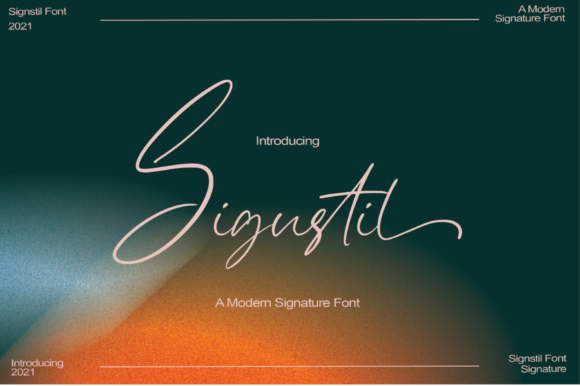
Introducing **Sigustil Font**, a breathtaking script font family that exudes elegance and sophistication. Its carefully crafted curves and delicate strokes evoke the timeless charm of calligraphy, yet it retains a modern and fresh appeal. This versatile font is PUA encoded, granting you effortless access to a treasure trove of glyphs and swashes, empowering you to unleash your creativity and add a personal touch to your designs.
**Sigustil: The Perfect Font For Wedding Welcome Signs**
Are you planning a wedding and seeking a font that captures the joy and romance of your special day? Look no further than Sigustil. This enchanting font will transform your welcome sign into a captivating masterpiece that sets the tone for an unforgettable celebration. Its graceful lines and elegant flourishes will evoke a sense of warmth and hospitality, inviting guests to immerse themselves in the magic of your love story.
**Why Sigustil is the Must-Have Font for Designers**
As a designer, you understand the importance of creating designs that resonate with your audience. Sigustil is your secret weapon for crafting captivating designs that leave a lasting impression. Its versatility extends beyond wedding welcome signs; it's perfect for invitations, greeting cards, logos, branding, social media graphics, and more. Its timeless beauty and adaptability make it an essential tool for designers seeking to elevate their work and make a statement.
**Experience the Beauty of Sigustil Today**
Don't let this opportunity pass you by. Embrace the allure of Sigustil and witness the transformation it brings to your designs. Its charm and versatility will ignite your creativity and leave your audience spellbound. Make Sigustil your font of choice and embark on a journey of design excellence.